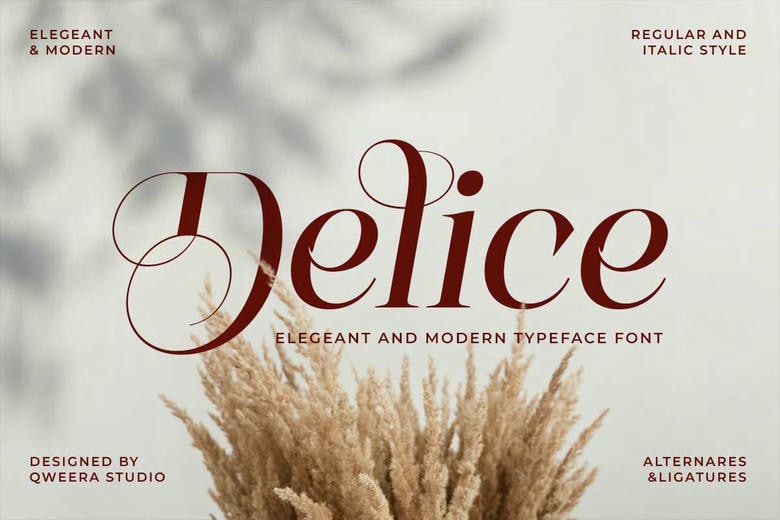
Delice Font
Delice is a modern serif typeface that combines classic sophistication with a hint of contemporary luxury. With smooth curves, balanced shapes, and carefully crafted alternates.
Delice works well for luxury branding, beauty packaging, fashion magazines, wedding invitations, boutique logos, cosmetic products, and other high-end marketing materials. It blends modern with classic elegance, making it a good fit for designers seeking refined, luxurious typography.
Delice Serif Font